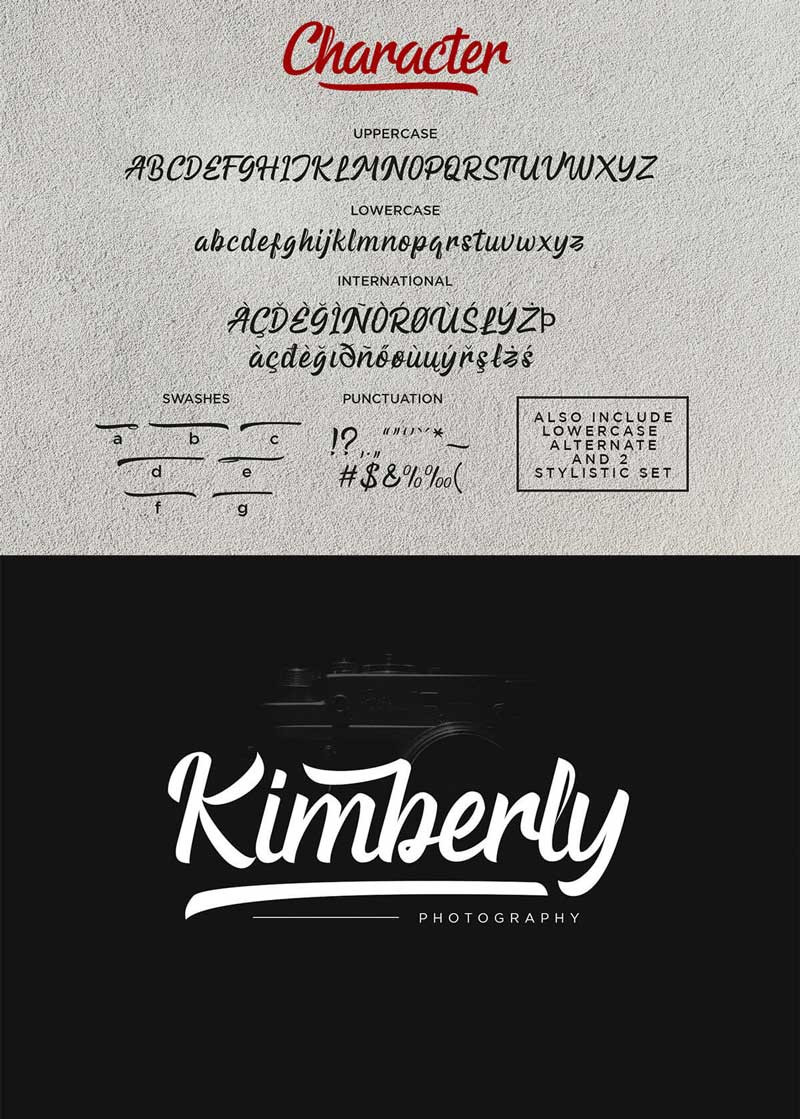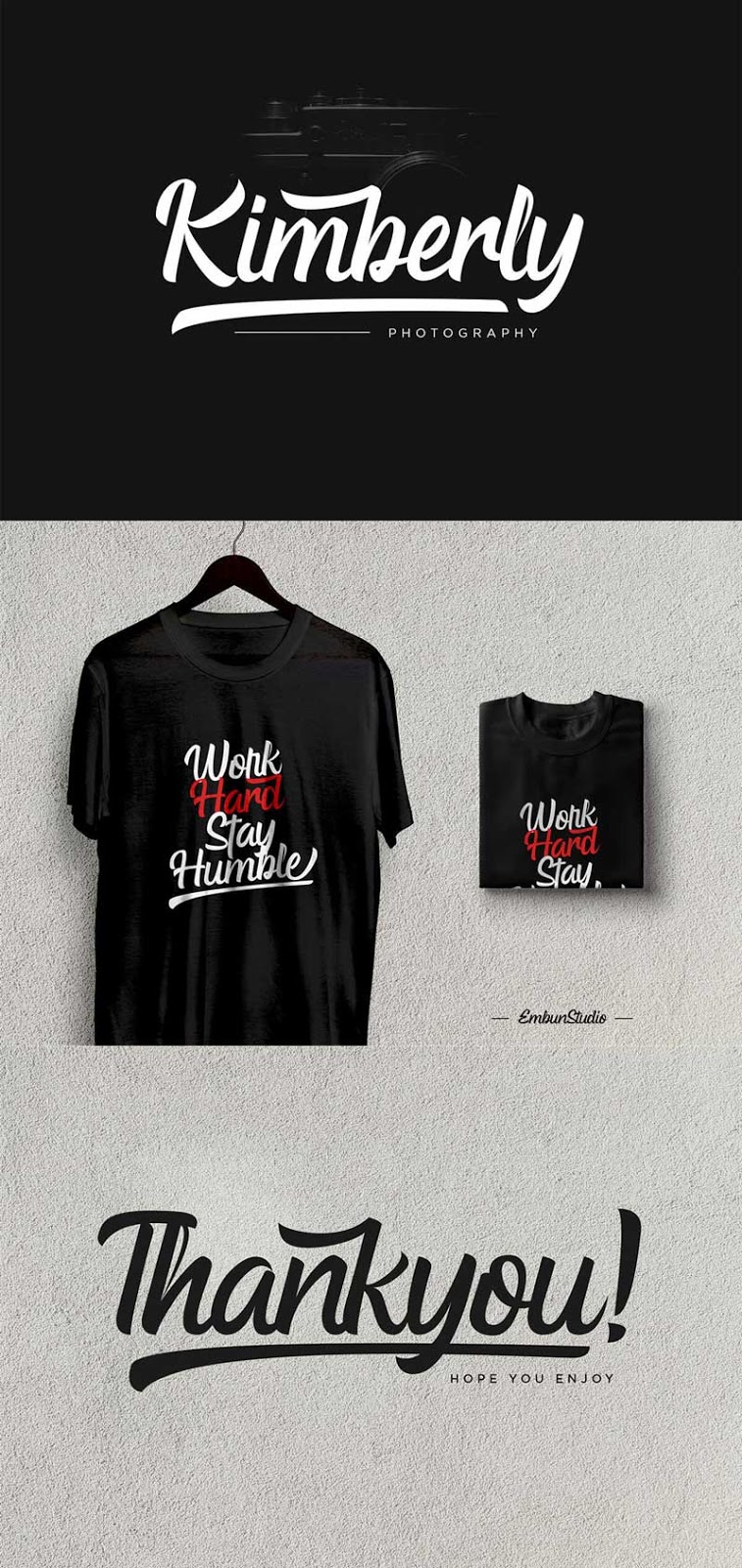
Hardwork Bold Script Font
Hardwork Free Bold Script Font is a clean, modern, bold and strong script font with a vintage look and full of charm. It contains uppercase, lowercase, and number.